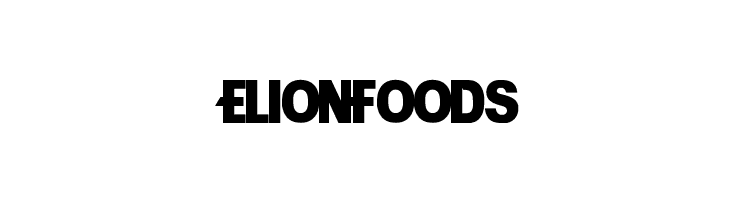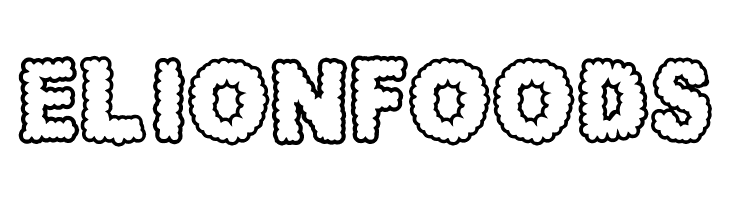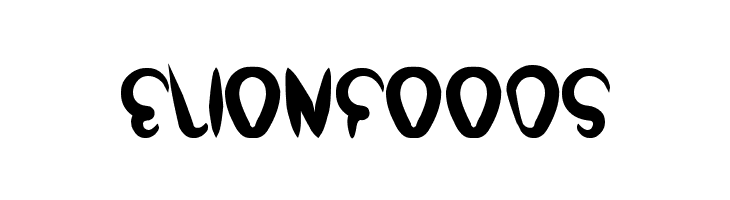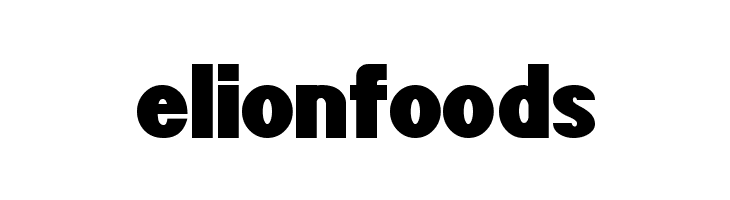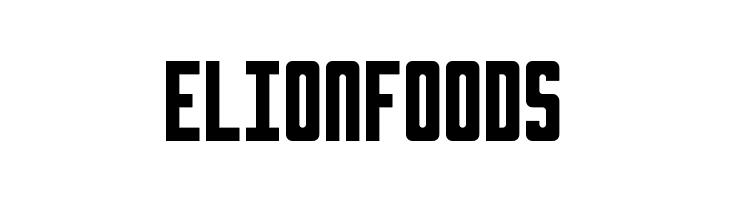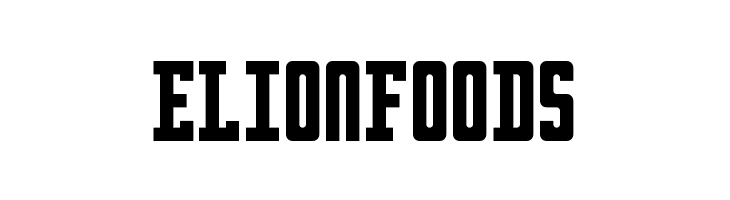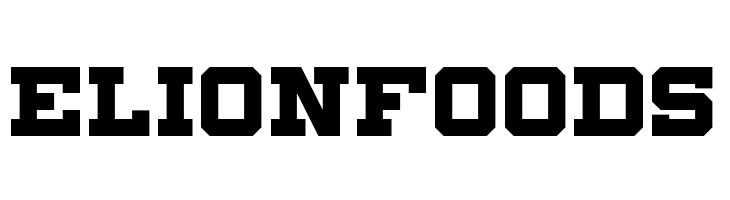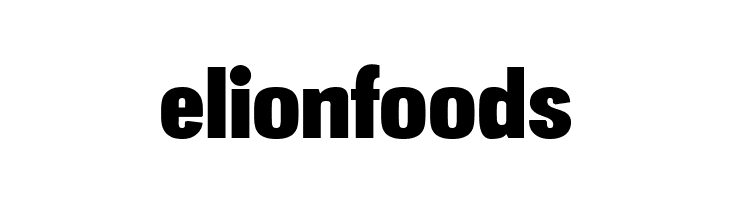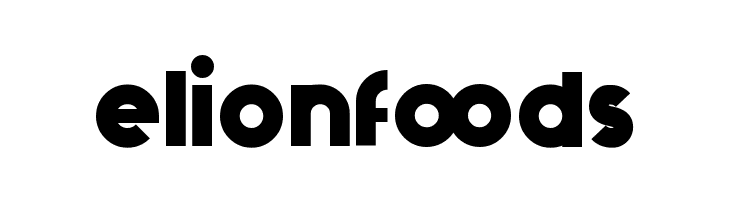
A bold, impactful font with thick strokes and a strong presence.
A bold, modern font with strong lines and high legibility.
A bold, artistic font with exaggerated curves and sharp points, ideal for creative projects.
A bold, geometric font with strong lines and a modern aesthetic.
A bold, retro-inspired serif font with strong vertical lines and minimal curves.
A bold, geometric font with strong, angular lines and a robust, industrial feel.
A bold, geometric font with strong lines and a modern aesthetic.